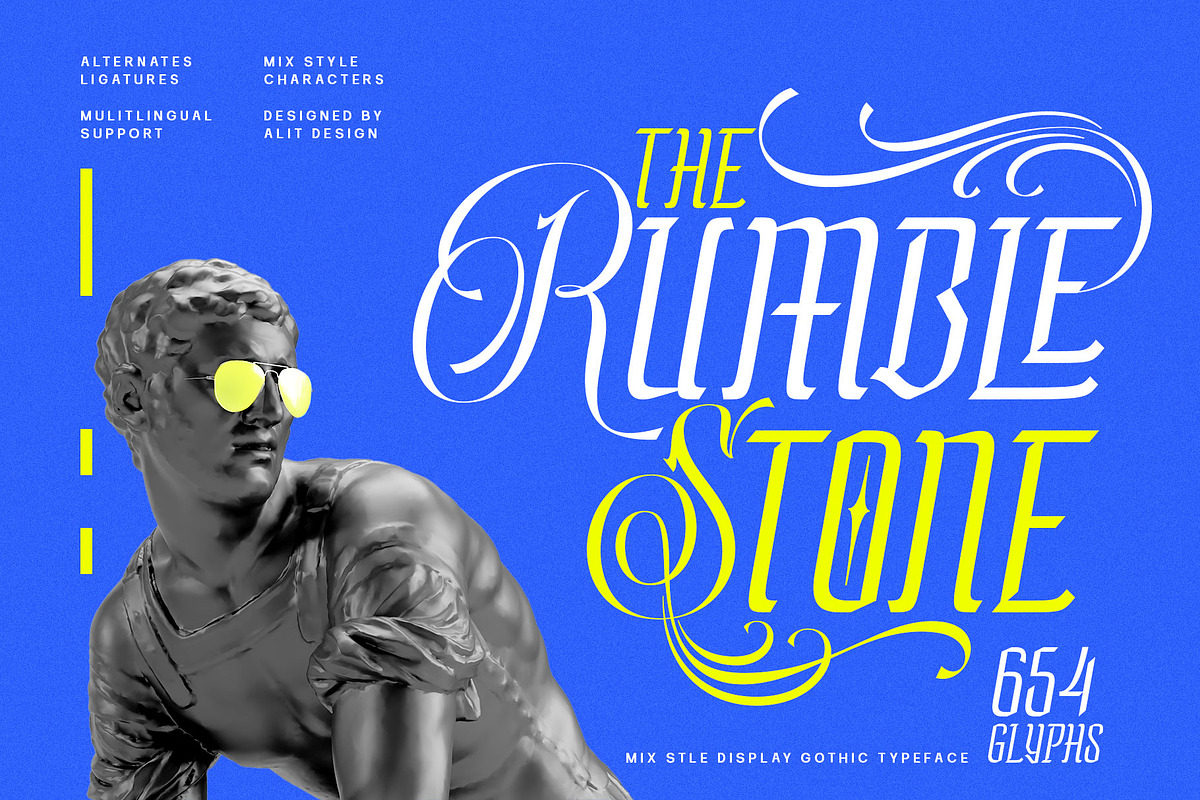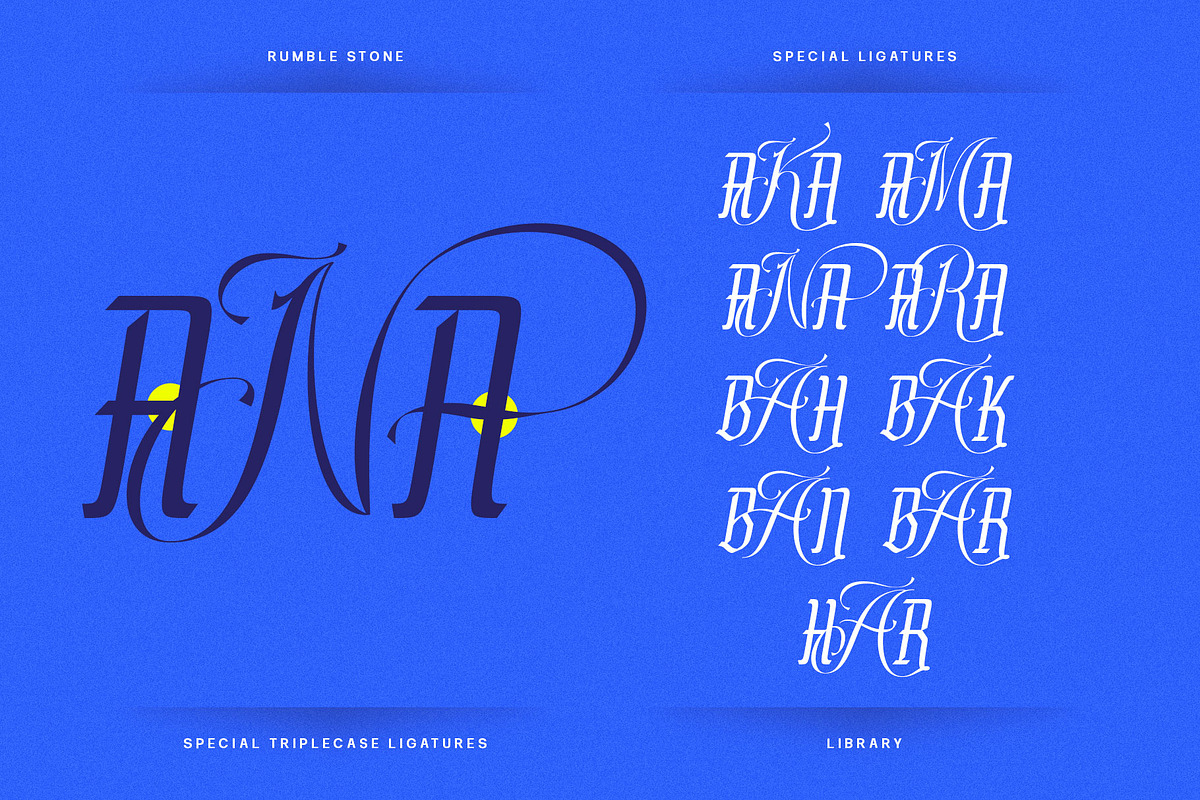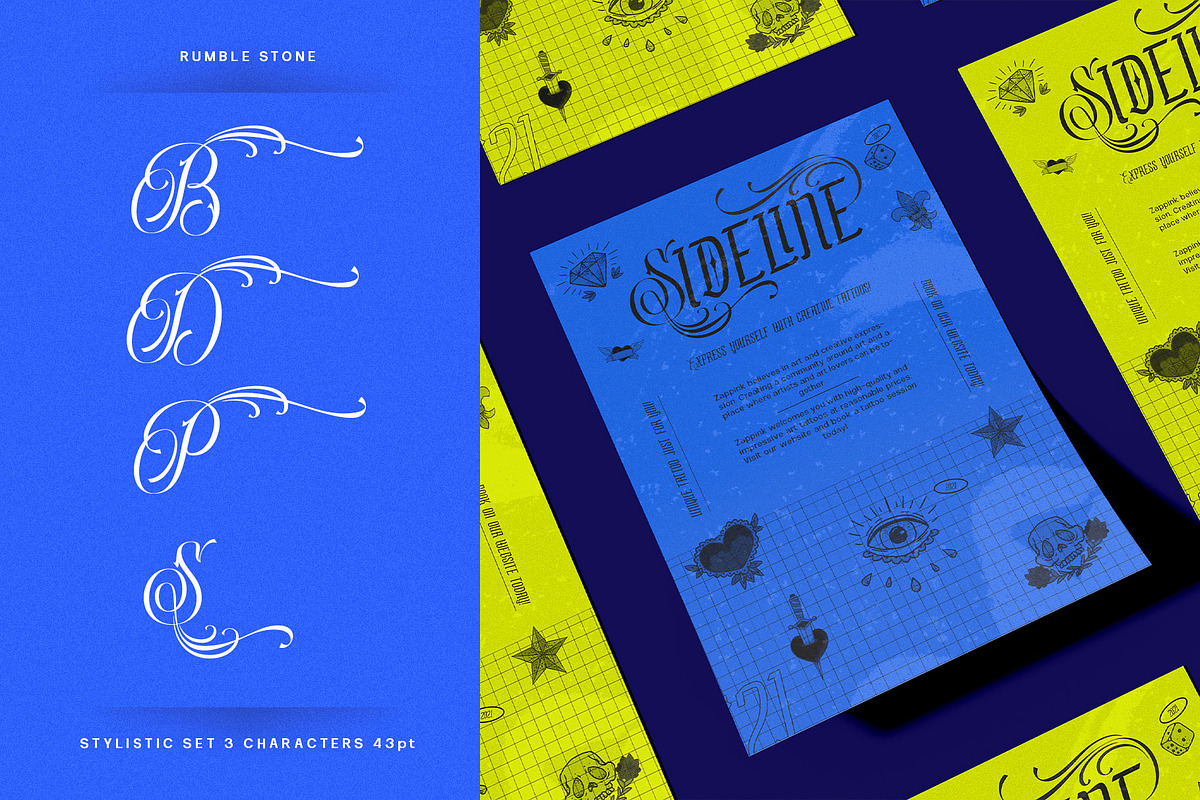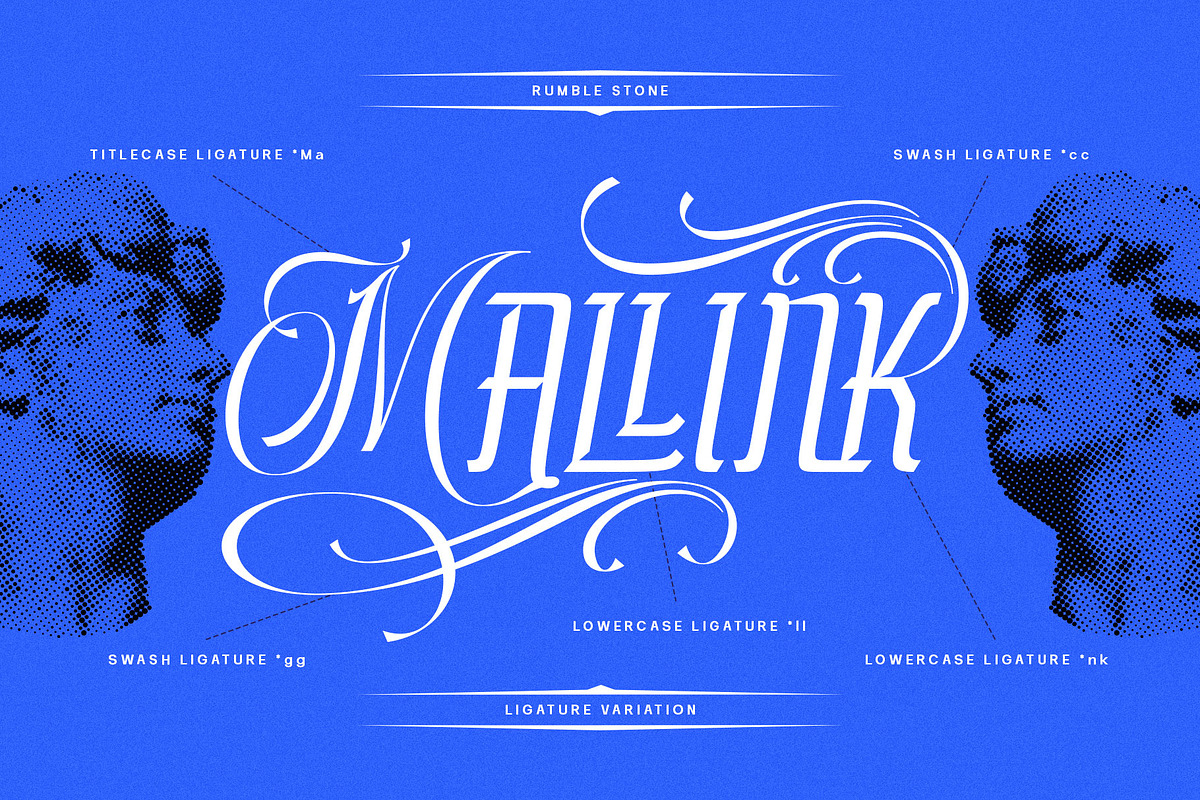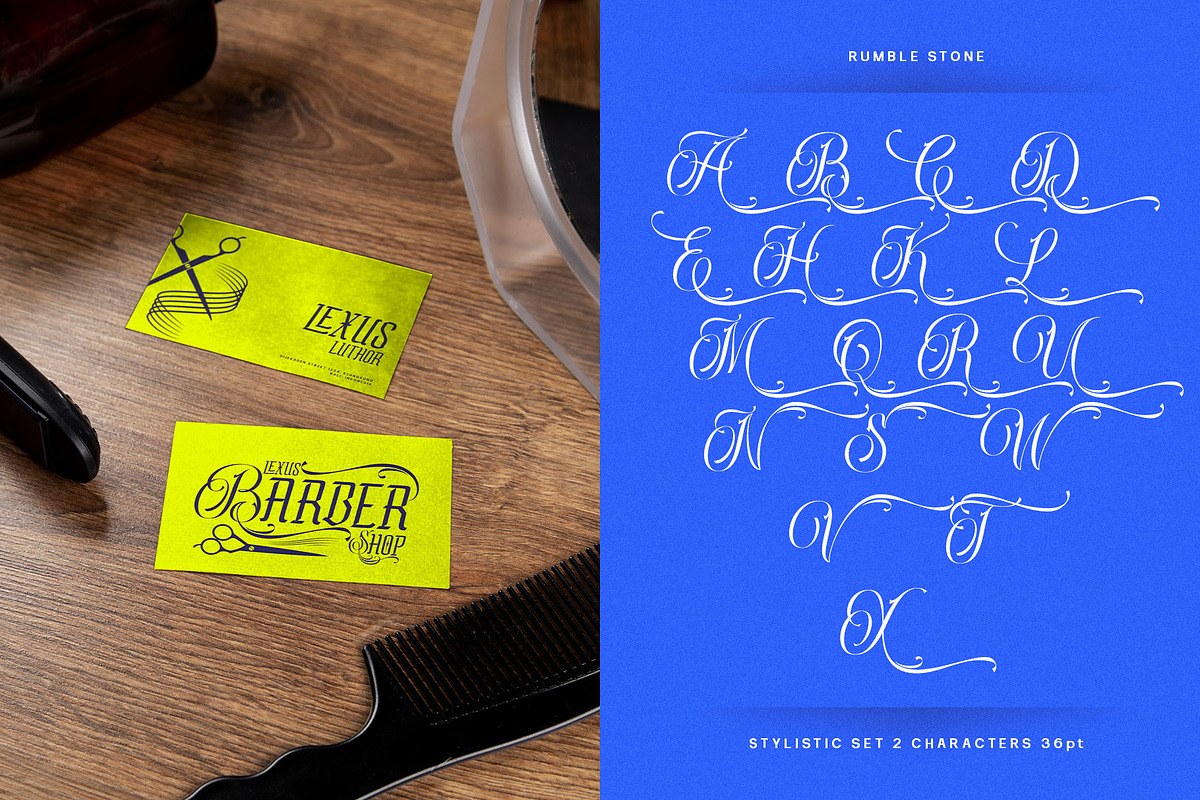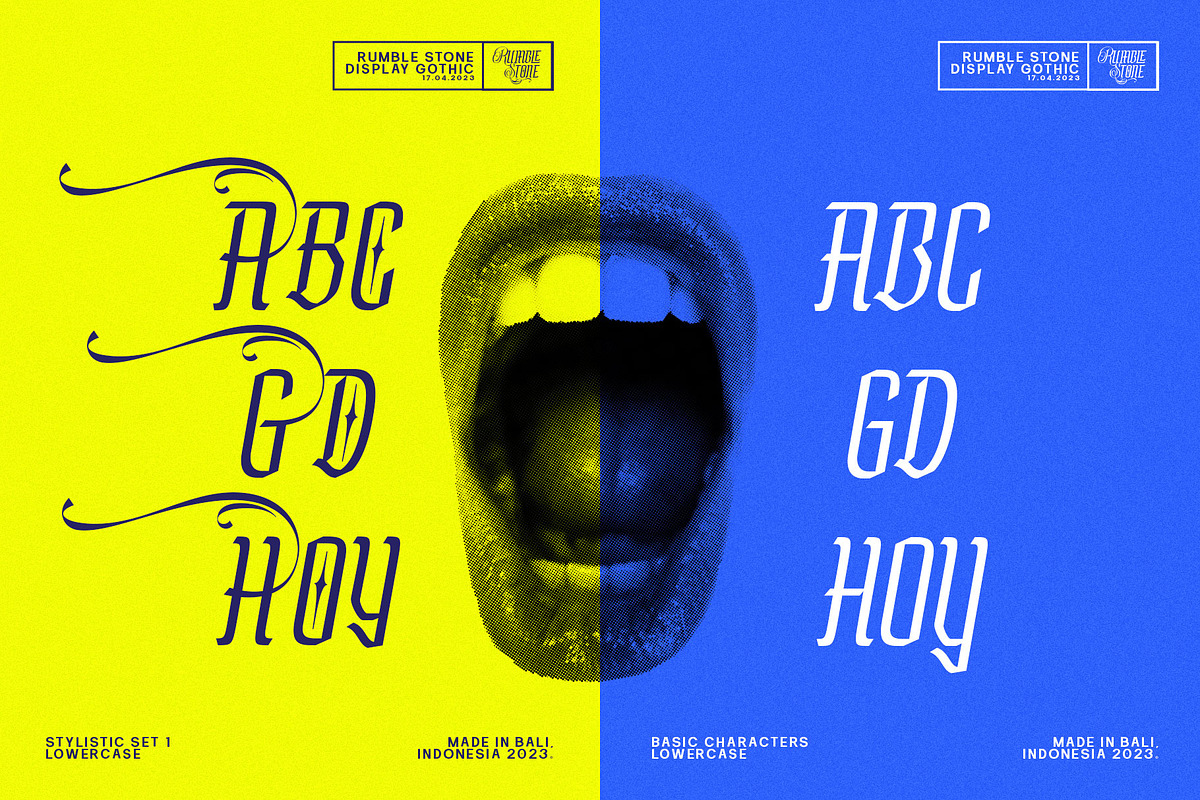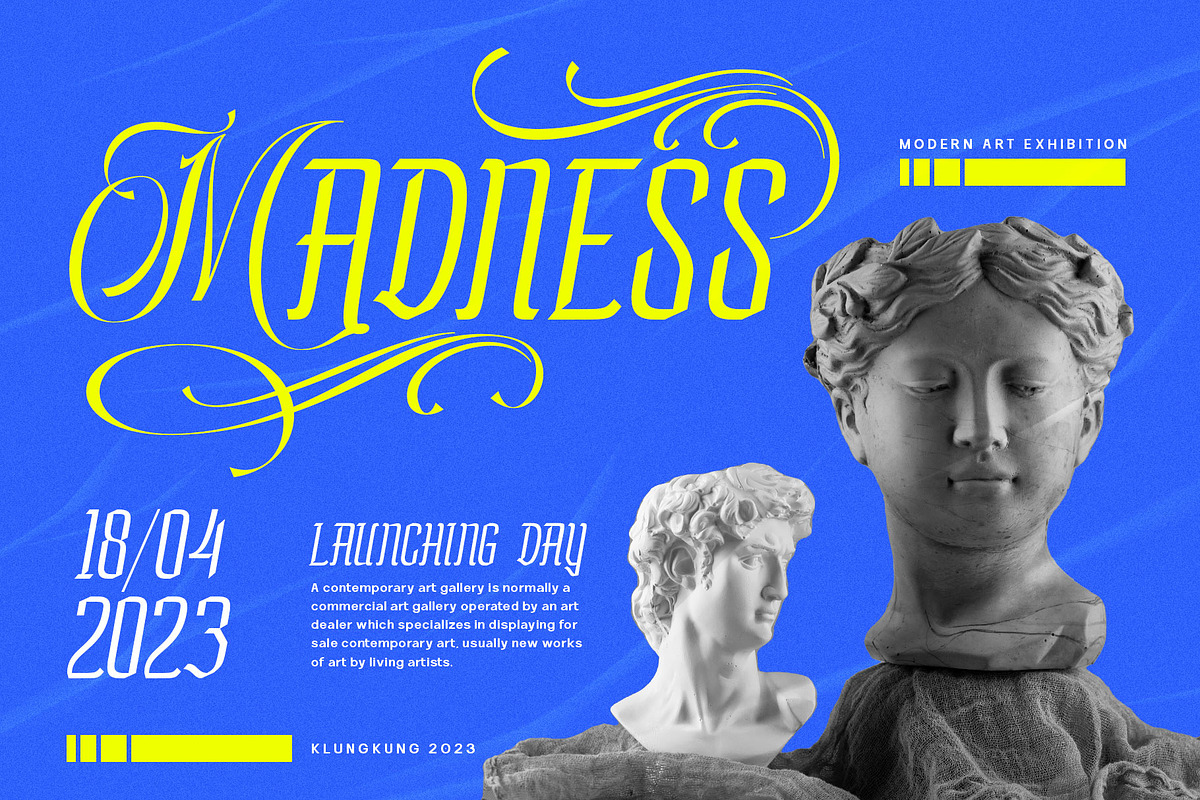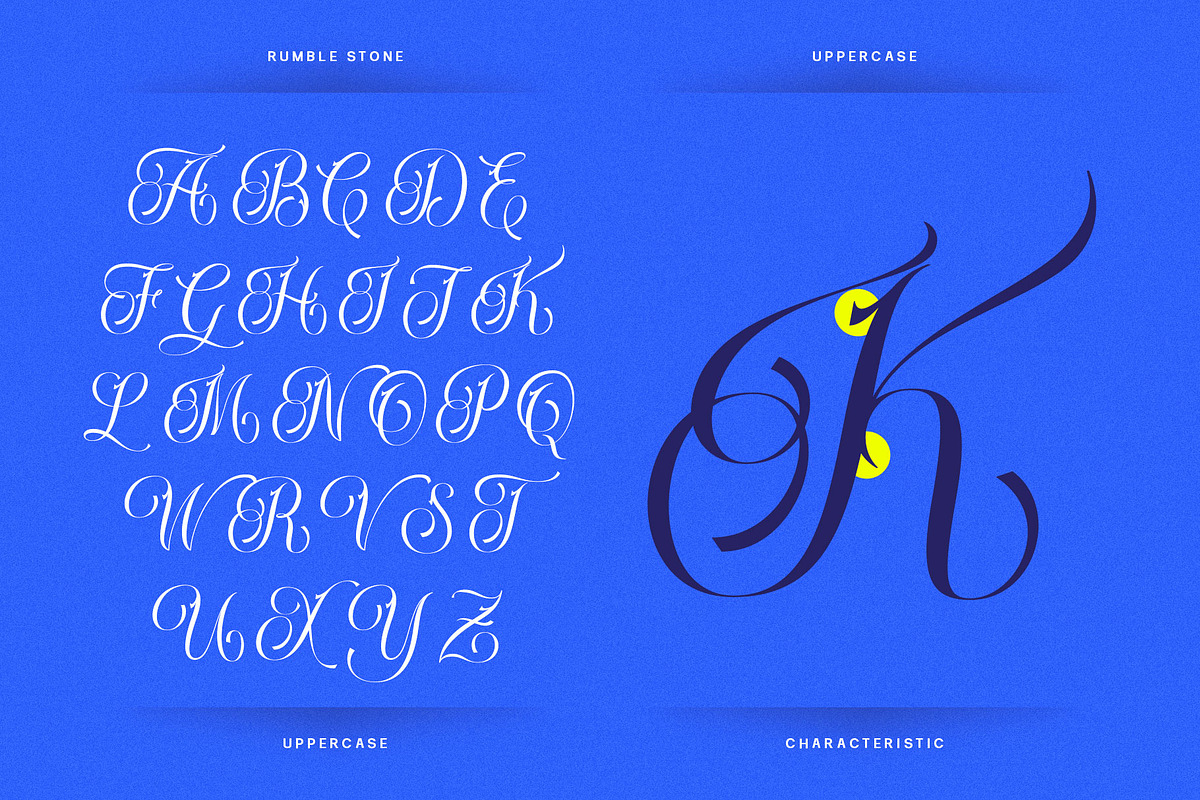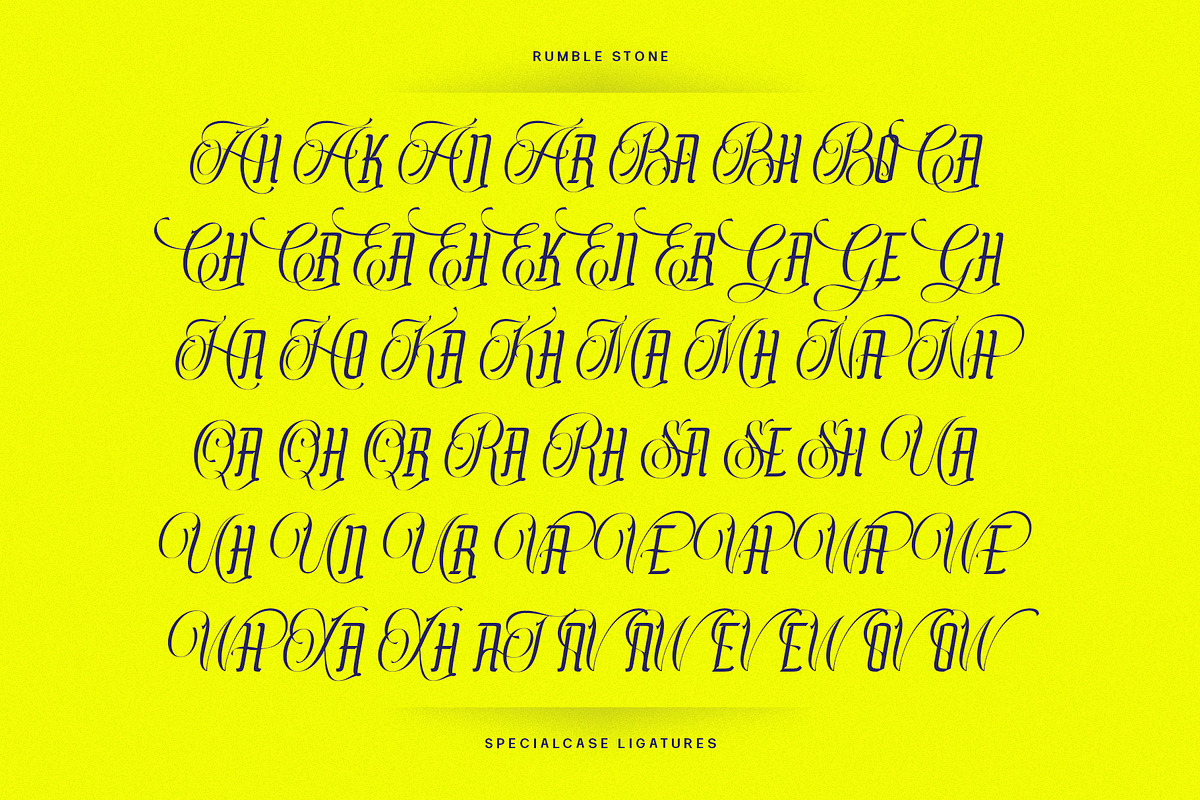
Rumble Stone Typeface
The "Rumble Stone" font is a unique combination of blackletter and brave script styles, making it perfect for tattoo designs and clothing. It features a total of 654 characters, including swashes, special ligatures, and alternative characters.
This font is designed to support PUA unicode and is multilingual, allowing it to be used for various projects in different languages. Its distinct and bold appearance makes it an excellent choice for designs that require a strong and edgy look.
Overall, the "Rumble Stone" font is a versatile and expressive typeface that can add character and personality to any project it is used for.
Language Support : Latin, Basic, Western European, Central European, South European,Vietnamese.